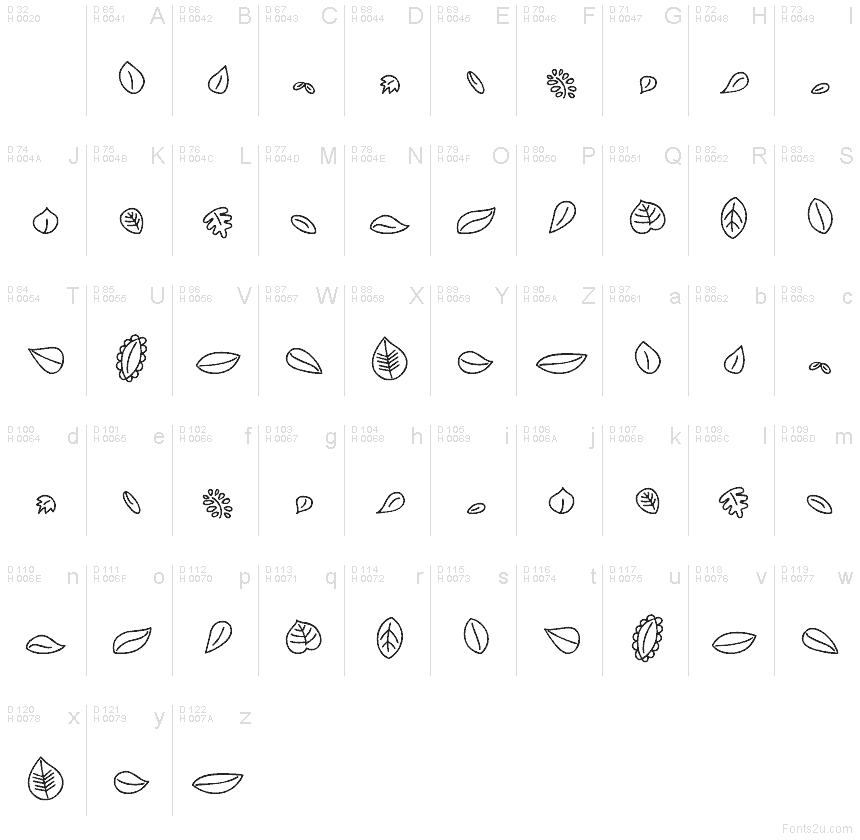
MTF Leaves
MTF Leaves font by Miss Tiina Fonts - MTF is a free nature dingbat typeface that scatters your layouts with hand-drawn leaf doodles. Each glyph has a loose, inky outline that feels like it was sketched in the margin of a notebook—organic, a little whimsical, and never stiff. The mix of simple ovals, sprigs, and more detailed foliage gives you a tiny toolbox of botanical icons without feeling repetitive.
Using MTF Leaves, you can quickly build leafy borders, page breaks, and badges for planners, craft printables, garden blogs, eco-branding, event invitations, and kids’ worksheets. The consistent line weight helps these dingbats sit comfortably next to casual handwritten or rounded sans fonts—try pairing with a soft script at larger sizes for headings, while letting this free font handle the decorative flourishes.